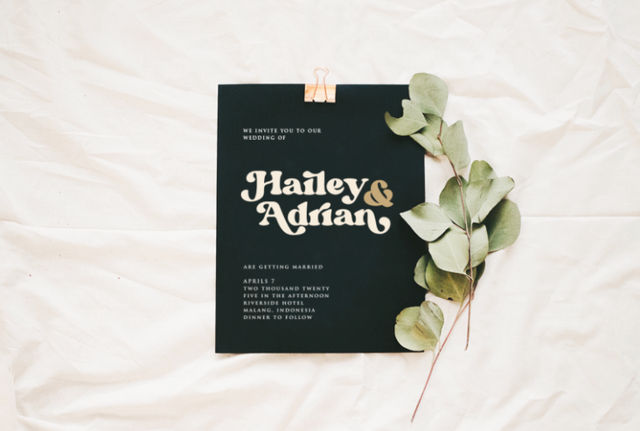
Margin Retro Font, an Element You Need for Your Vintage Design Project
The 70s era is a distinctive era that boasts a vibrant spirit. If you want to evoke the groovy disco days of this era, then the Margin Retro Font is the right choice. This font is a time capsule that transports you back to the funky and free-spirited vibes of the 70s.
Despite the retro style, this font is still relevant. Find out why this font should be part of your next design project in this article!
The Inspiration
As you might have guessed, the Margin Retro Font takes the disco and groovy era of the 70s. The fun and free spirit inspired the creation of this chunky and bold font. Just with one glance, this font will easily catch your attention with its fun and quirky shapes, making it an excellent choice for a display font.
The 70s era was about pushing the limits in terms of design, hence, the distinct look of the design, including the typeface. This era used a lot of thick or chunky shapes, wavy lines, and tight letter space. These characters are reflected perfectly in this retro font.
Although this font is chunky and has a rounded shape, it is still highly legible and easy to read. Therefore, you can incorporate this font into the body text as well without worrying that the text becomes difficult to read.
Style Selection
There are 2 types of styles offered in the Margin Retro Font package: the Regular and the Italic Style. Due to it already having a chunky letter form, this font does not provide a bold style version.
1. Regular Style
Just as its name suggests, Regular has a basic style with a smooth, round, and friendly feel. This simple design evokes a retro vibe without appearing too complicated. Use this style to add some old-school cool vibe to your design project.
2. Italic Style
While the shape is similar to the Regular one, the Italic style is slightly slanted. This adds a playful twist that can give your design an extra kick to enhance the groovy retro vibe. Use this as a heading and title to create a cool design style.
Usage
Due to its versatility, the Margin Retro Font can be easily applied to various design projects and media. From print to online media, this font is easily applicable and adjustable. Here are some ideas on how you can use this cool font.
1. Advertisement and Posters
Retro advertisements and posters are known to be fun and quirky. So why don’t you add these nostalgic vibes to your next design? This font is eye-catching, and the Regular style helps you keep things clear. Make sure that your audience gets your message clearly. If you want to add a little bit of extra excitement, you can always use the italic style.
2. Online media
On the internet, you need a unique design to make sure your website or social media posts stand out. This is what the Margin Retro Font will do for you. The font will help your content pop into a digital noise and creation world.
3. Logo
If you are working to design a logotype, use this font to create a stylish vintage-style logo. The Regular style will add a professional touch to your logo, while the Italic version will add personality to it. Don’t be afraid to experiment with the letters to create a unique 70s-style logo. Guarantees that your logotype will make every head turn.
How to Use Margin Retro Font
There are many ways you can use this font to make your design pop among the crowd. So make sure you experiment with every aspect of the font to add personality to your design. Mixing styles and adding colors gives your design a whole new look!
Here are some tips on how to make your design with the Margin Retro Font attract the audience.
1. Mixing regular and italic style
With multiple texts on your design, you can always combine font styles. In this case, combine the Regular and the Italic style to create a balance. Use the Regular one for normal text, and then use the Italic version to grab attention.
Using the same font with different styles is a good way to create variation in your design. This avoids clashing font design that makes your overall design look unbalanced.
2. Add space to the letters
Adding or reducing space between the letters can make an impact on how the final design looks. If your text looks a little bit difficult to read, adding more space will effectively increase the legibility. Meanwhile, less space between the letters will make your text look tight and cool.
3. Experiment with colors
Another method you can try is by experimenting with colors. Adding solid and bright colors will give your design a fun twist. You can always use vibrant colors to improve your text’s groovy and free-spirited look.
Margin Retro Font is more than just letters. It is a time capsule that brings the 70s vibe back to your design project. The available Regular and Italic styles add a funky past look to your design.